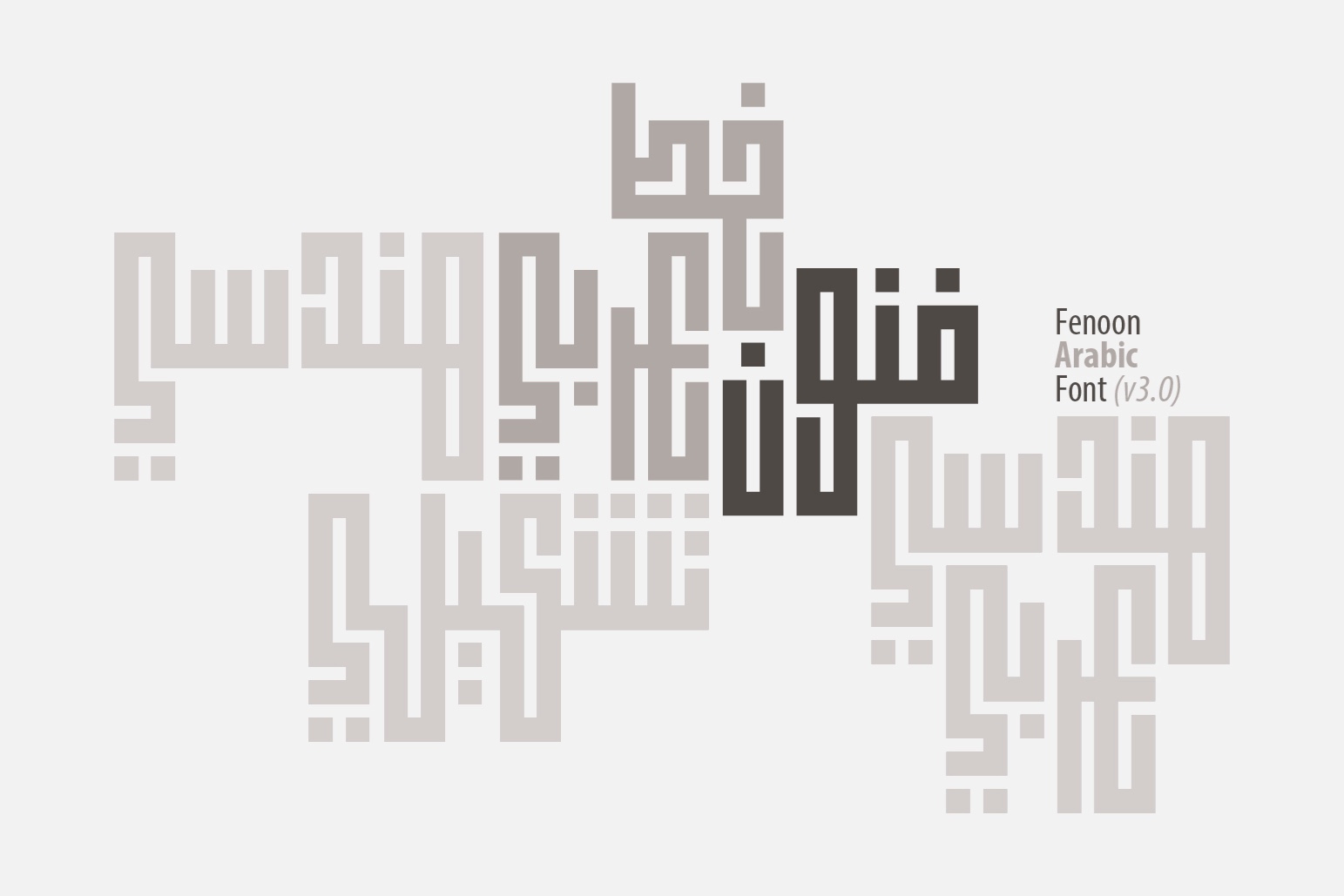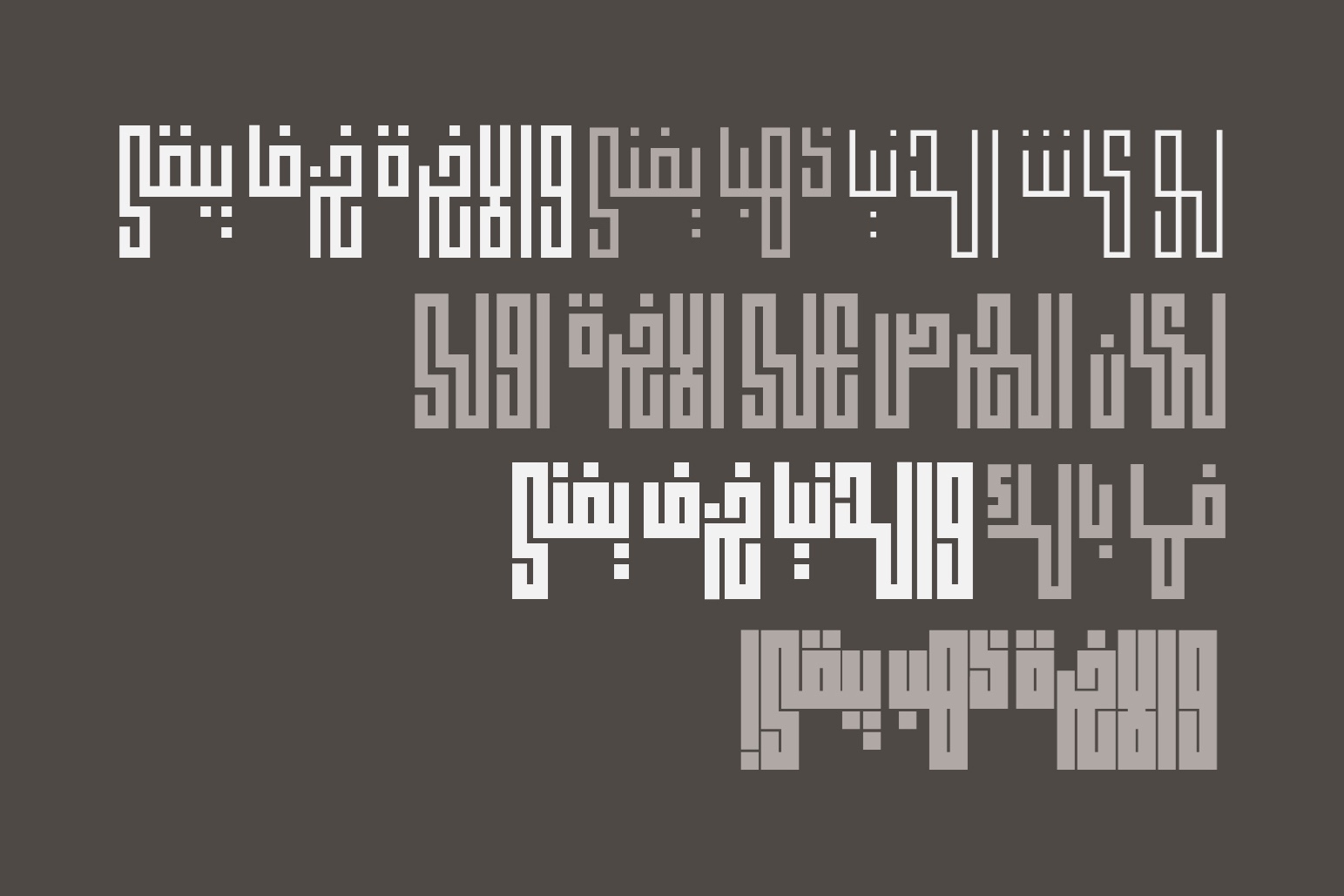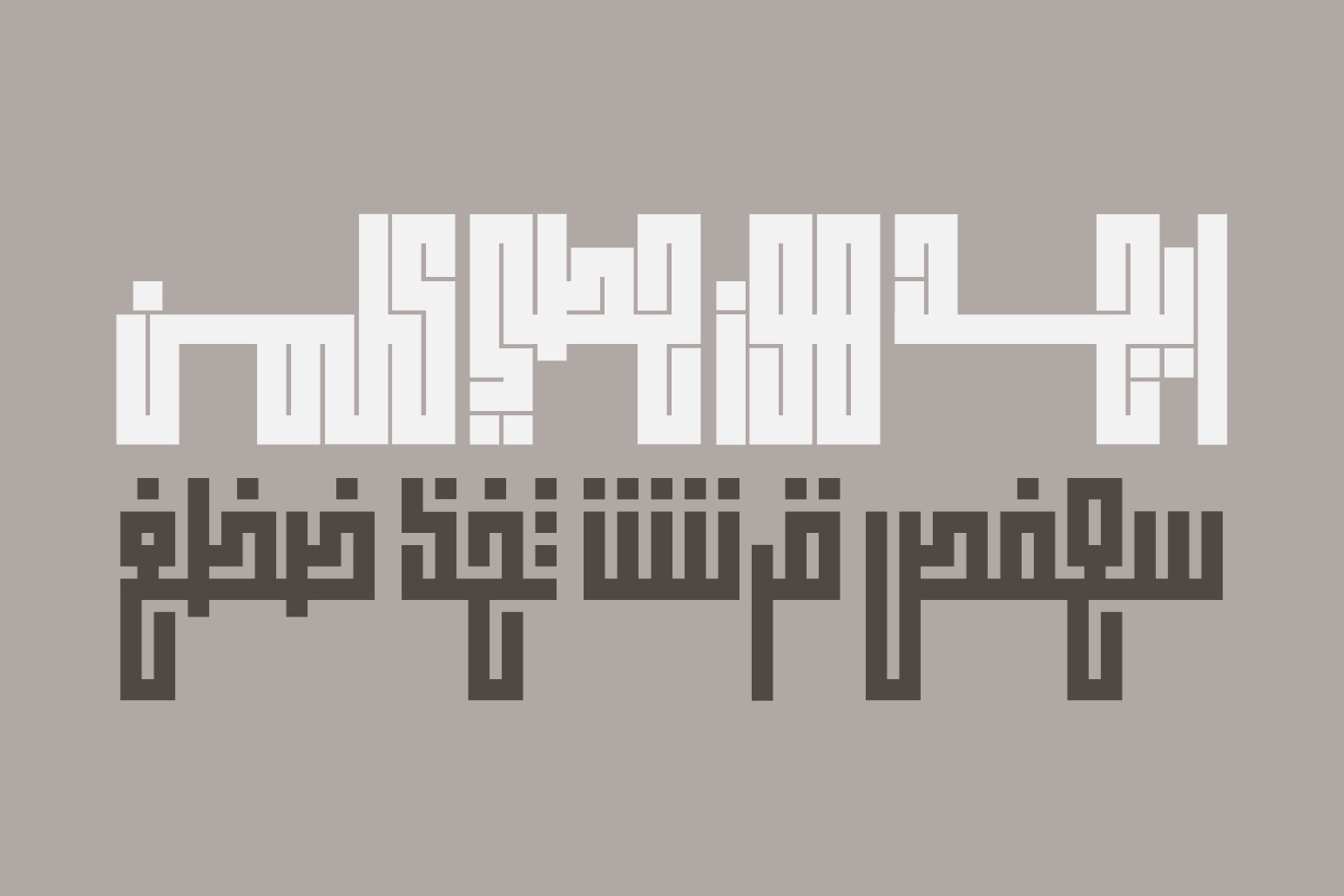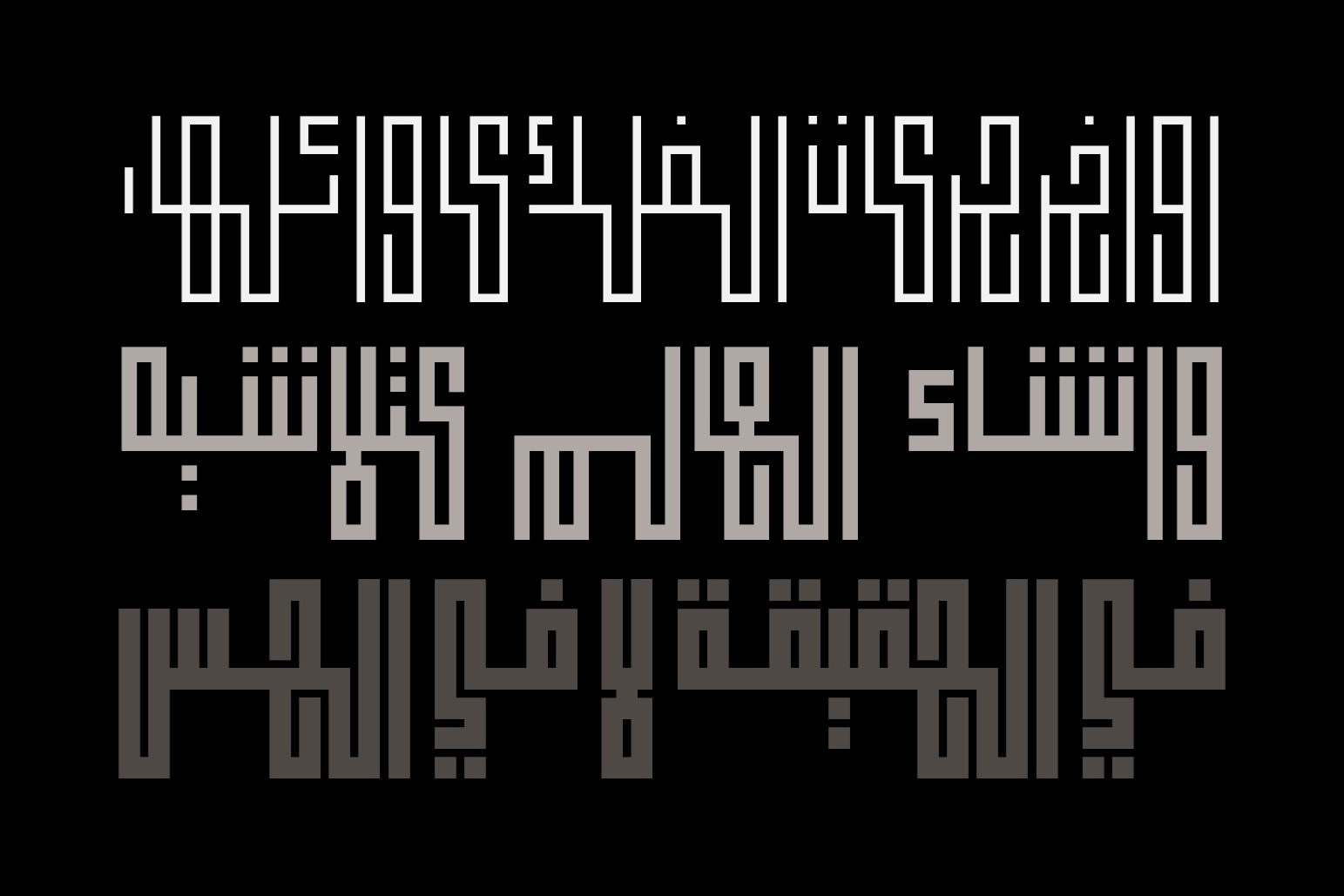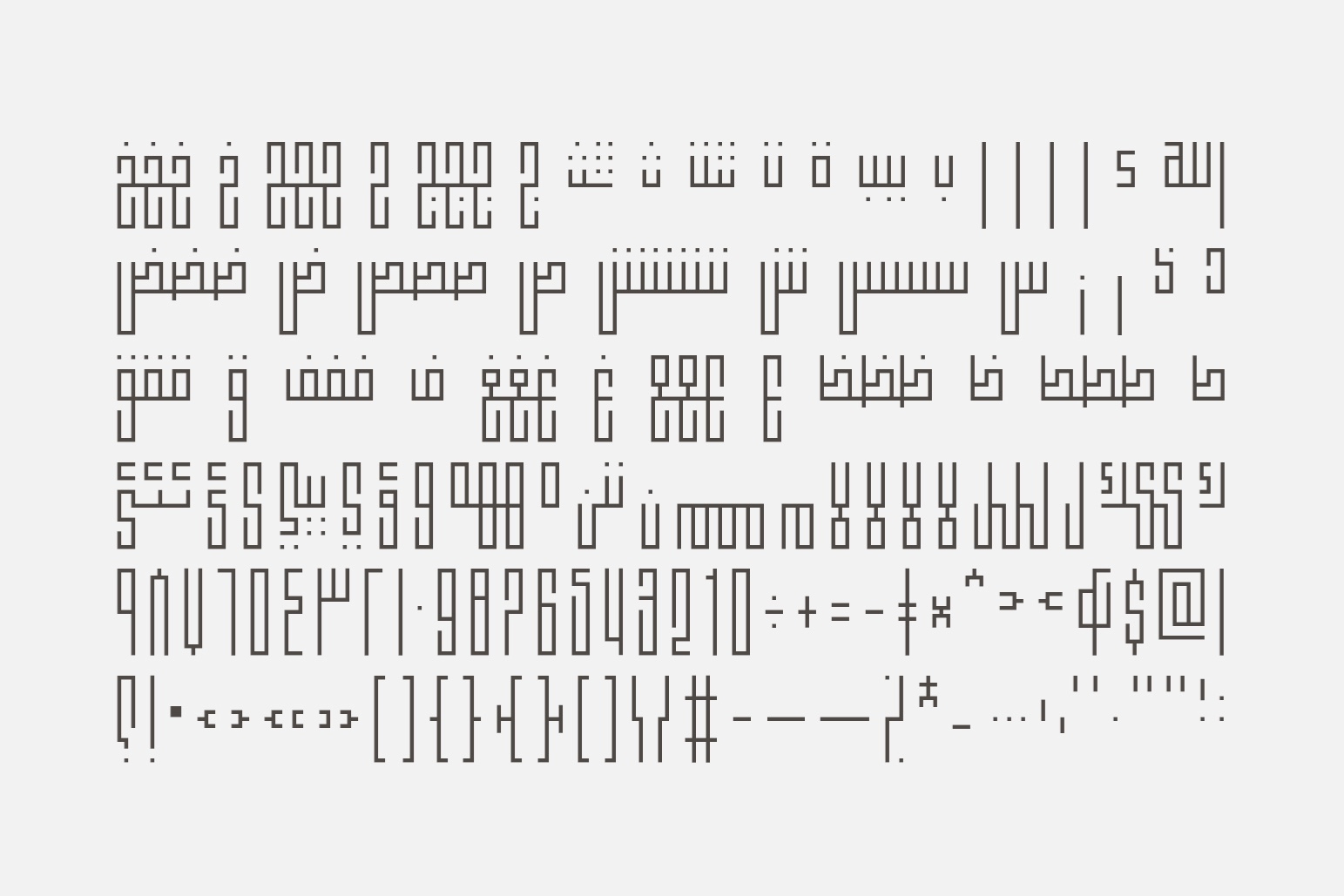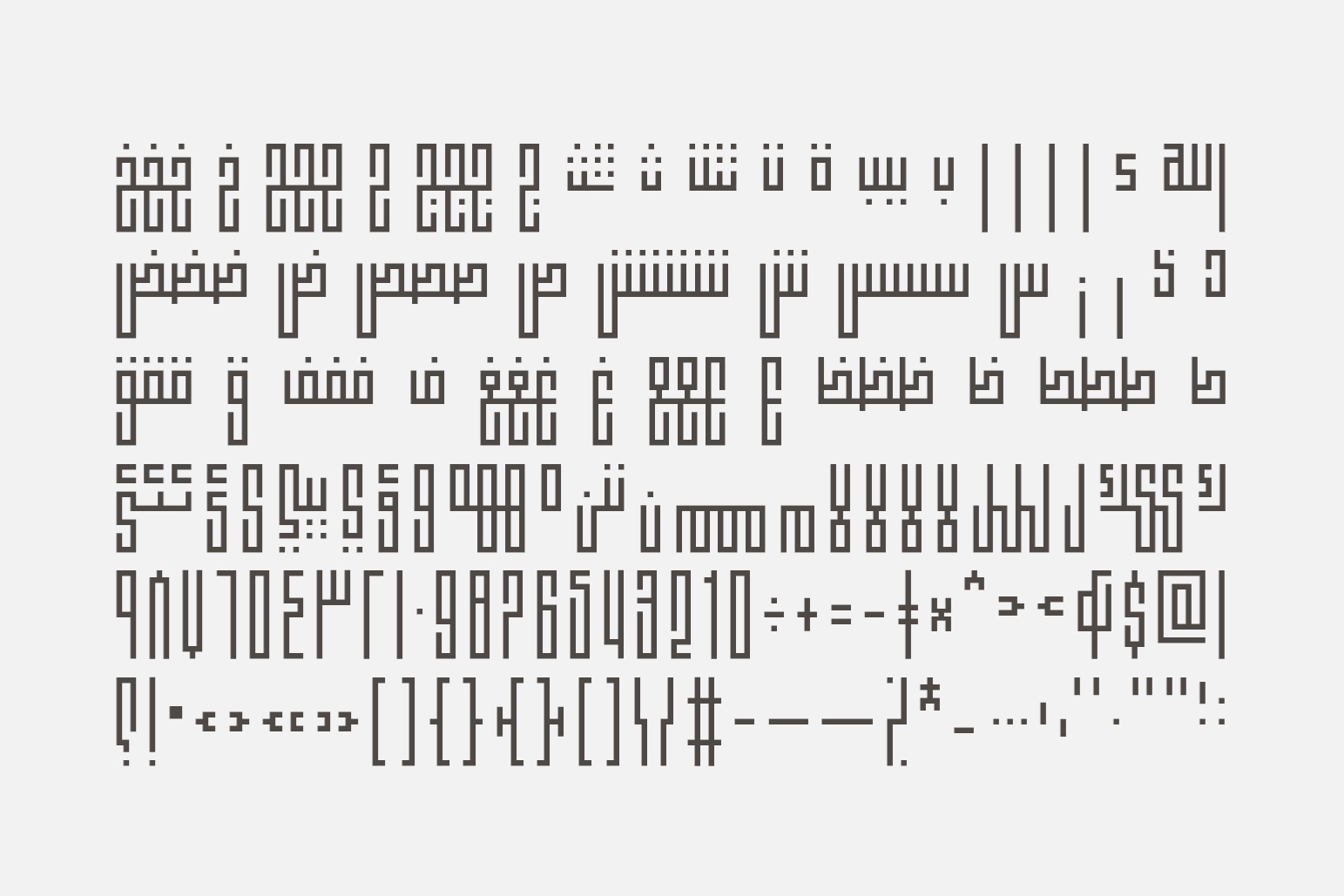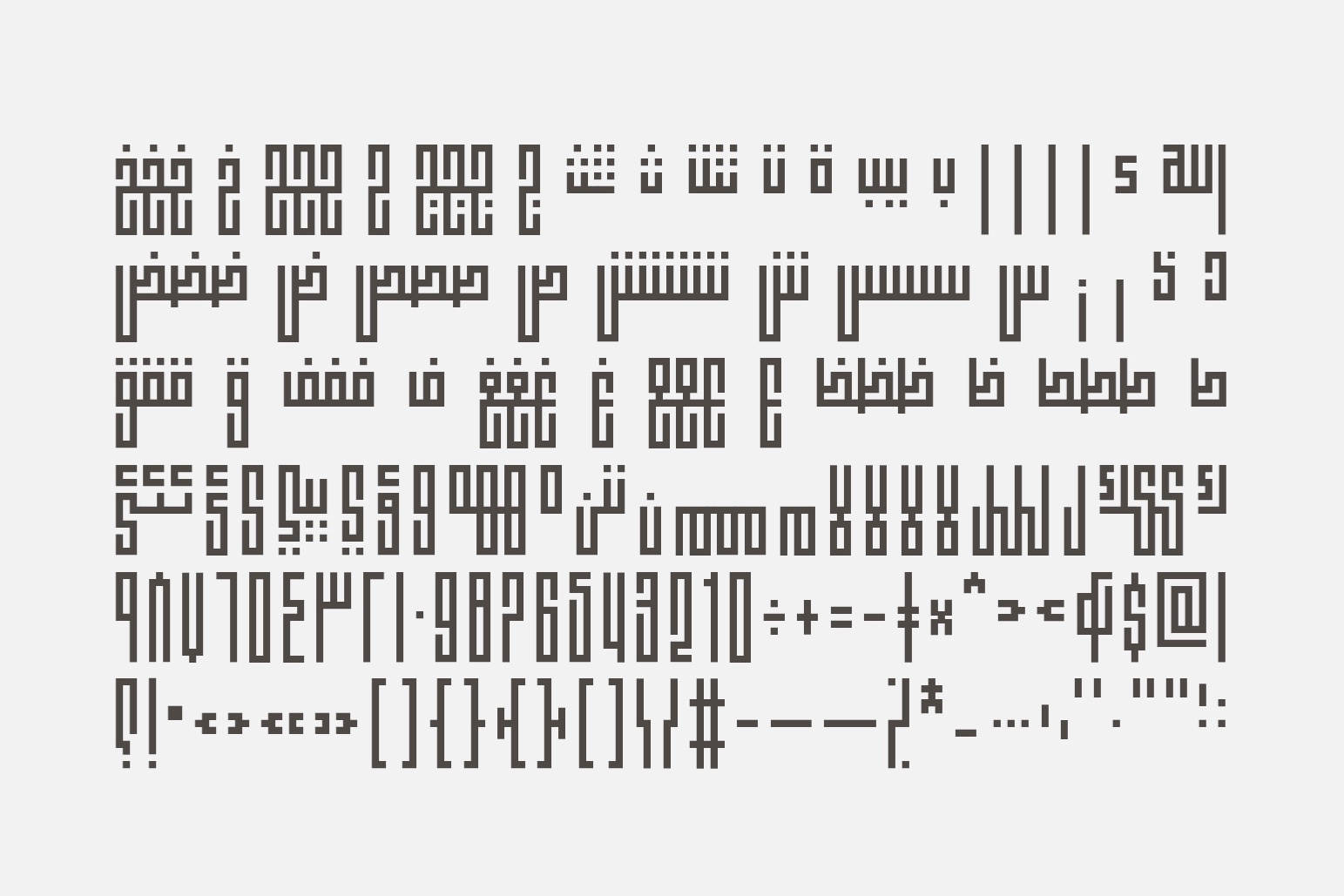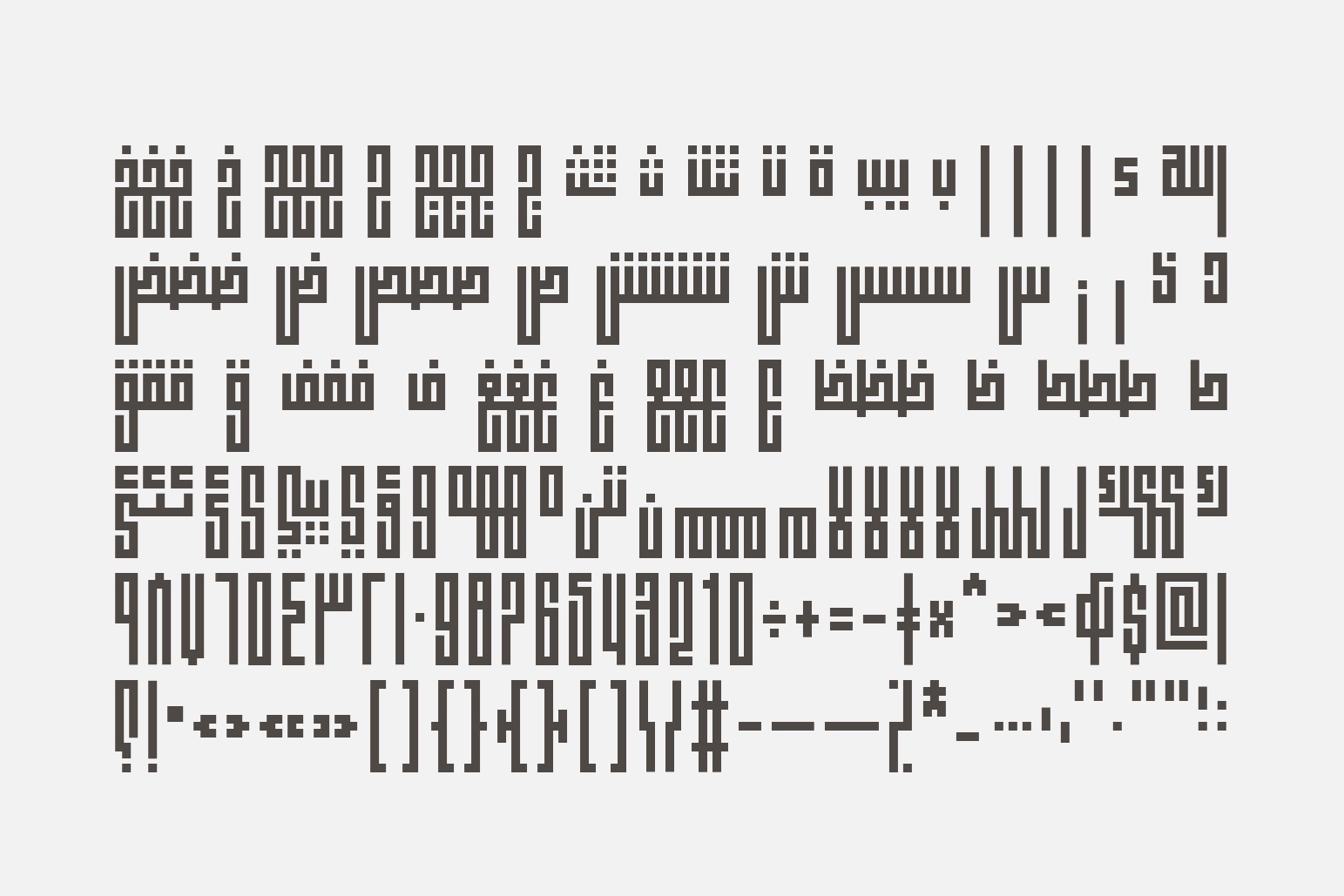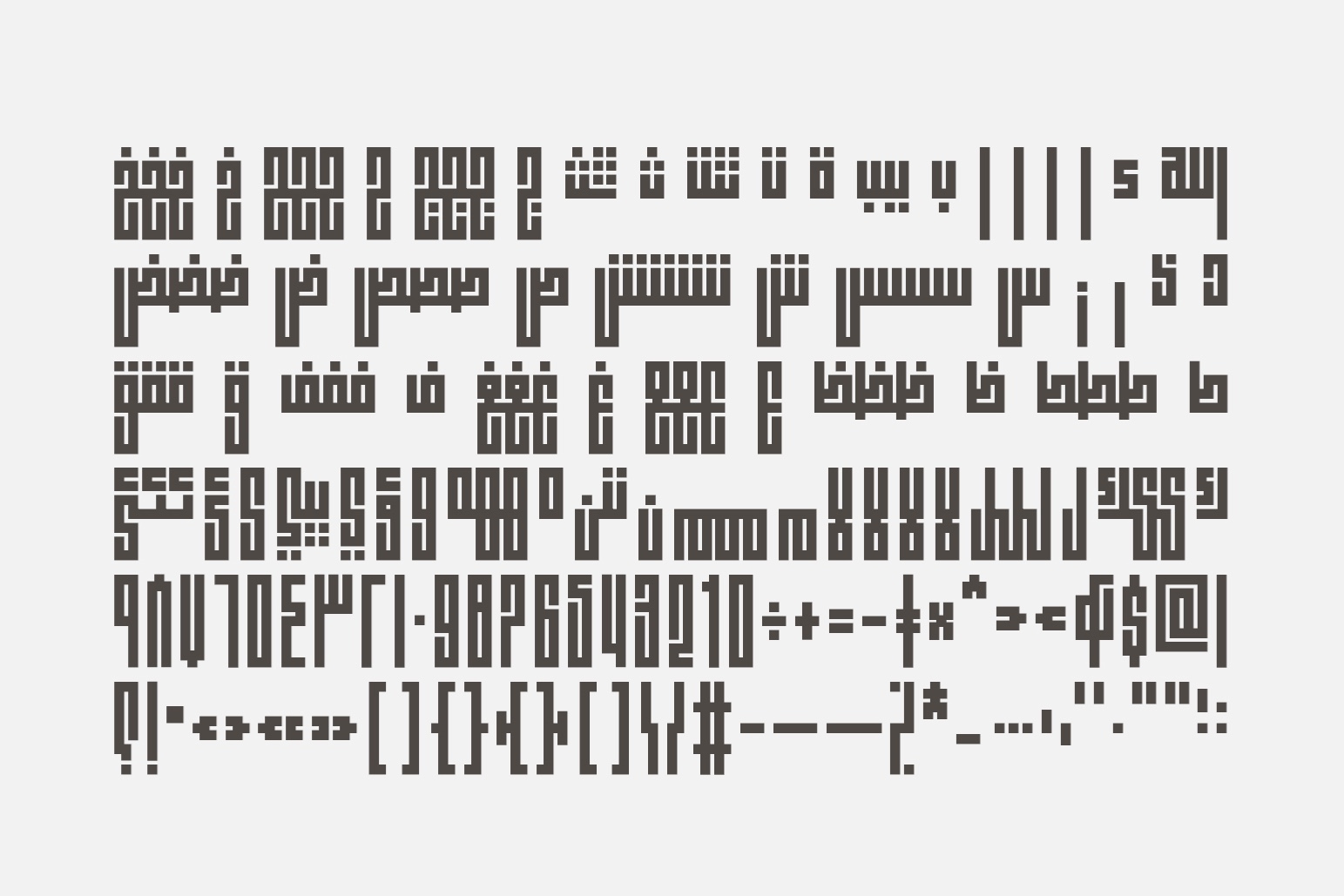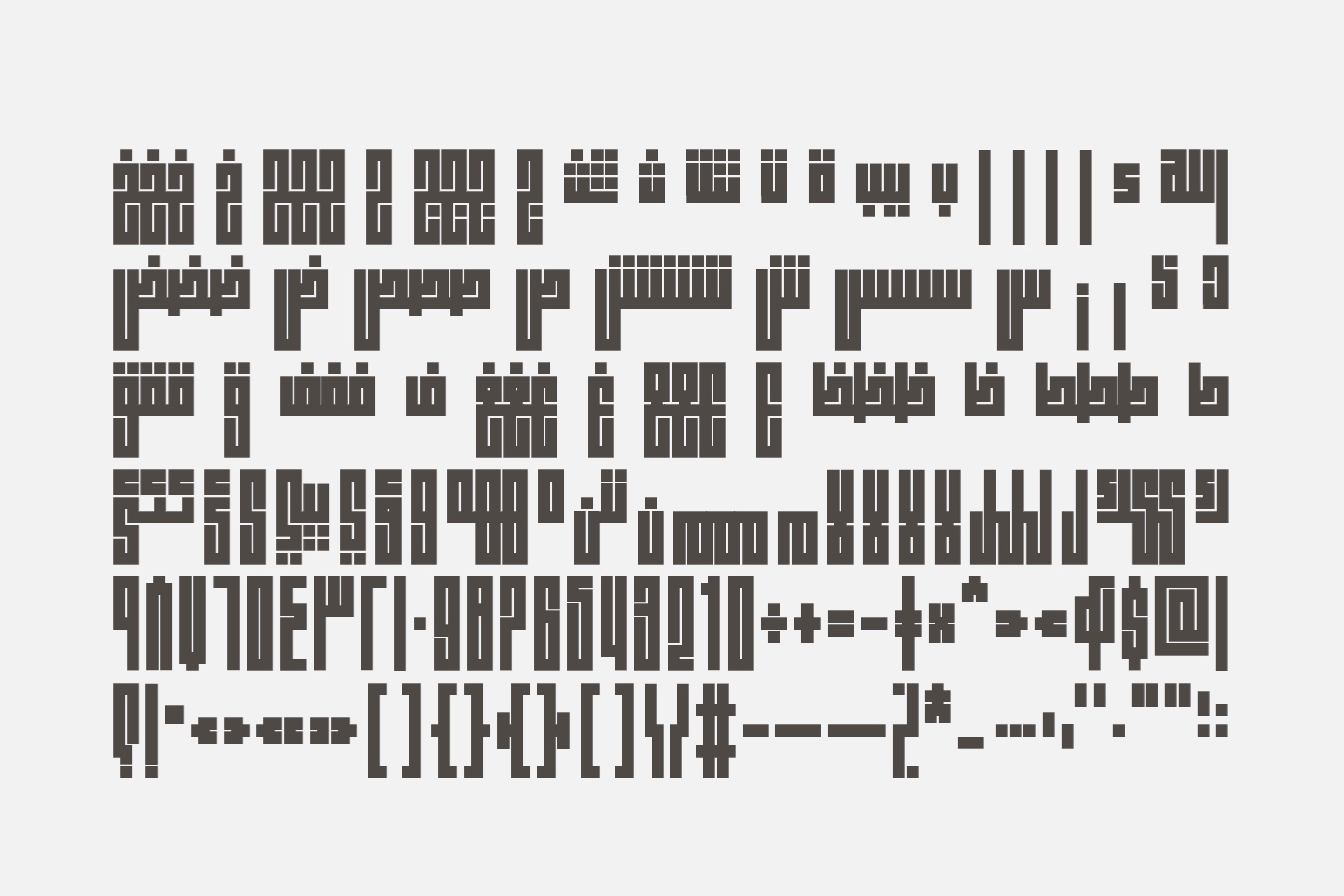
Fenoon is an Arabic display font that is inspired by the ancient Square Kufic script. The typeface features stretched letterform design with six different weights (Thin, Light, Normal, Regular, Medium and Bold) along with a variable VF.TTF font. Fenoon suits contemporary art projects such as visual identities, art events and packaging. It supports Windows, Mac OS and mobile applications.